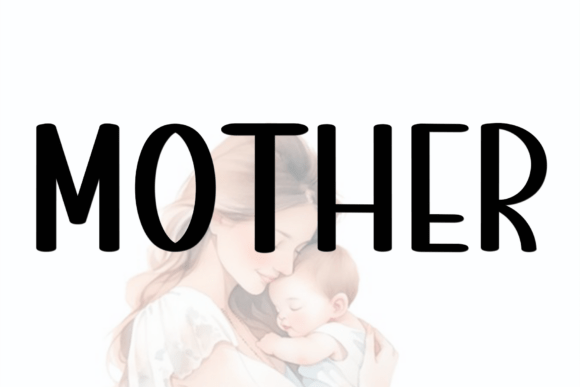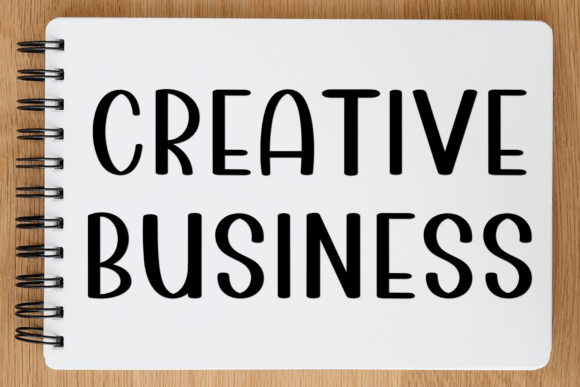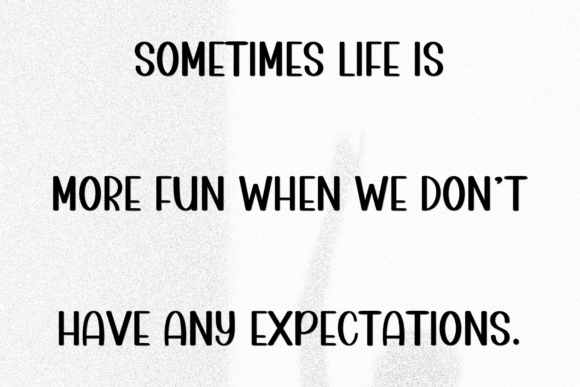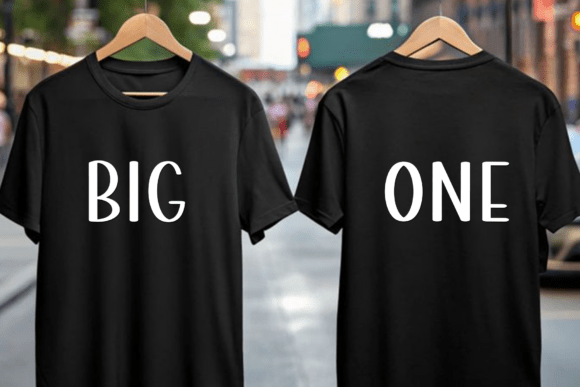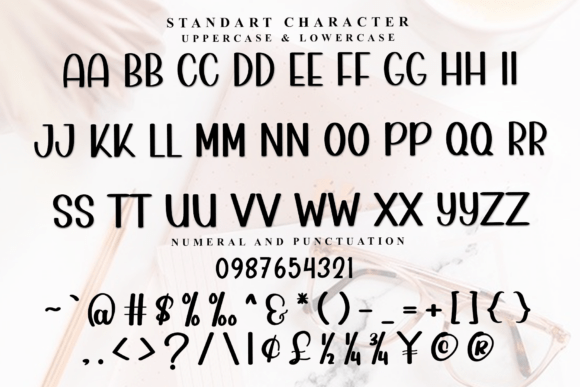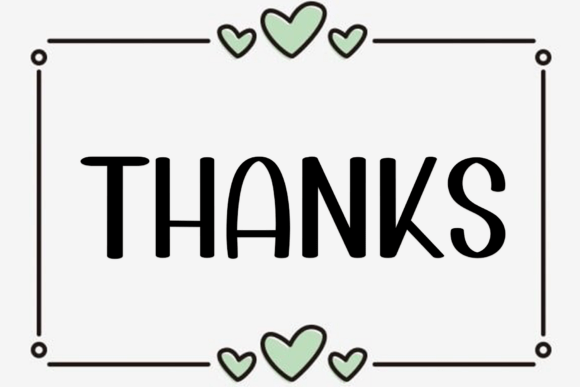
As I sat at my desk, staring at a blank canvas, I knew I needed something special to bring my creative project to life. The perfect font can make all the difference, and that’s when I discovered the enchanting Honey Magic Font. Its unique strokes and soft touch captivated me, and I knew I had to learn more.
With its high-quality design and versatility, the Honey Magic Font is a valuable resource for designers and creatives. Whether you’re working on a project with a transparent background or need a free download to add some magic to your design, this font is sure to impress. Its compatibility with various applications makes it a go-to choice for designers across different artistic fields.
As I began to experiment with the Honey Magic Font, I realized its true potential. From crafts to design projects, this font adds a special touch that’s hard to find elsewhere. Its unique character makes it perfect for those looking to add a personal touch to their work, and its free download makes it accessible to everyone.
- Unique Design: Honey Magic Font is a high-quality, creative font perfect for various projects, from logos to packaging design, with a transparent background that allows for seamless integration.
- High-Resolution Graphics: Honey Magic Font comes in a high-resolution format (300 DPI) to ensure crisp and clear text, ideal for print materials and digital displays.
- Customizable: The font’s unique design and transparent background make it an excellent choice for creative projects that require a touch of magic.
- Perfect for Various Projects: Whether you’re working on a branding project, creating a logo, or designing a website, Honey Magic Font is an excellent design resource to have in your collection.
As a designer, I’m always on the lookout for high-quality fonts to elevate my creative projects. Recently, I stumbled upon the Honey Magic Font, and I must say, it’s been a game-changer for my designs.
- ✨ Unique and whimsical design: The Honey Magic Font has a touch of magic that adds a playful feel to any design.
- ✨ High-quality graphics: The font is crisp and clear, making it perfect for both digital and print designs.
- ✨ Transparent background: The font has a transparent background, allowing it to seamlessly integrate with any design background.
- ⚠️ Limited character set: The font only comes with a limited character set, which may not be suitable for projects that require a wider range of characters.
- ⚠️ Not ideal for small text: The font’s unique design may not be suitable for small text sizes, as it may become difficult to read.
Overall, I’m thoroughly impressed with the Honey Magic Font. It’s a fantastic design resource that’s perfect for creative projects that require a touch of whimsy and magic. With its high-quality graphics and transparent background, it’s a must-have font for any designer’s collection.
Use the Honey Magic Font in conjunction with other high-quality design resources for a truly unique look.
Experiment with different font sizes and styles to add visual interest to your design.
The Honey Magic Font is perfect for a variety of creative projects, including:
Marketing materials and advertisements